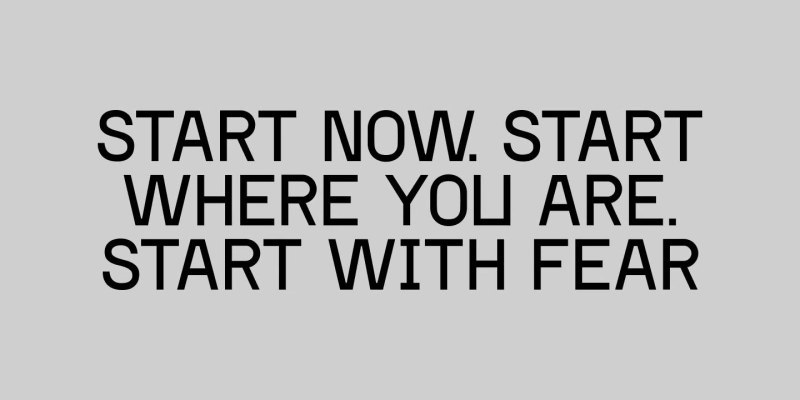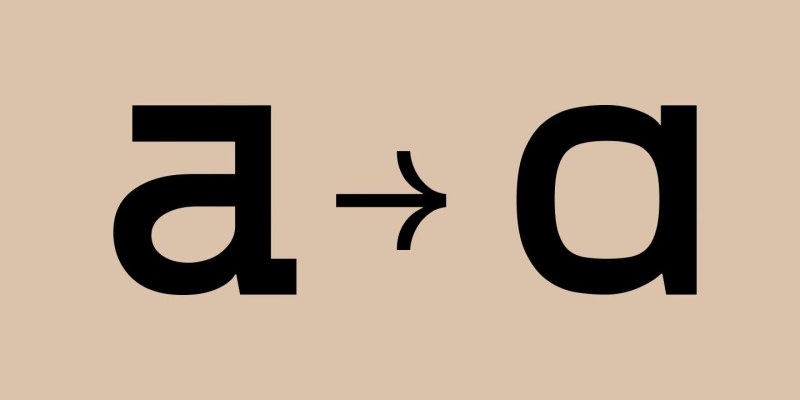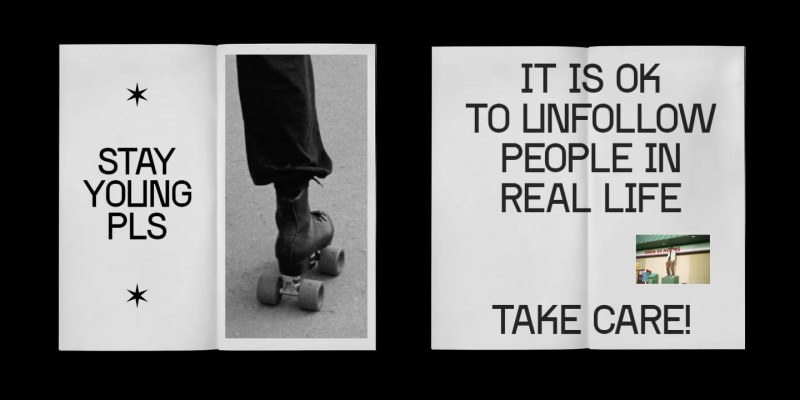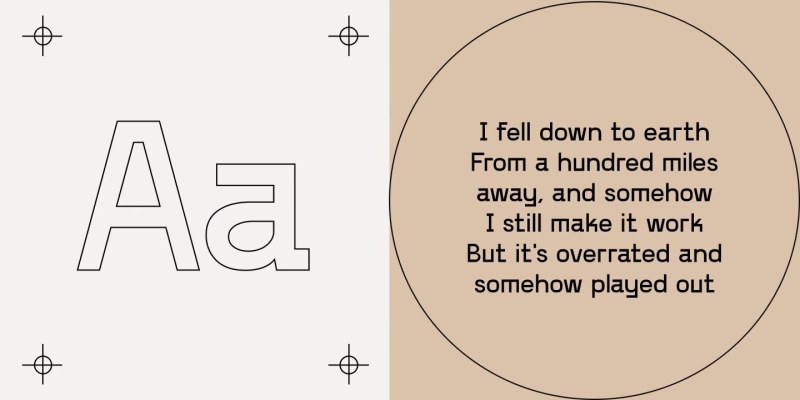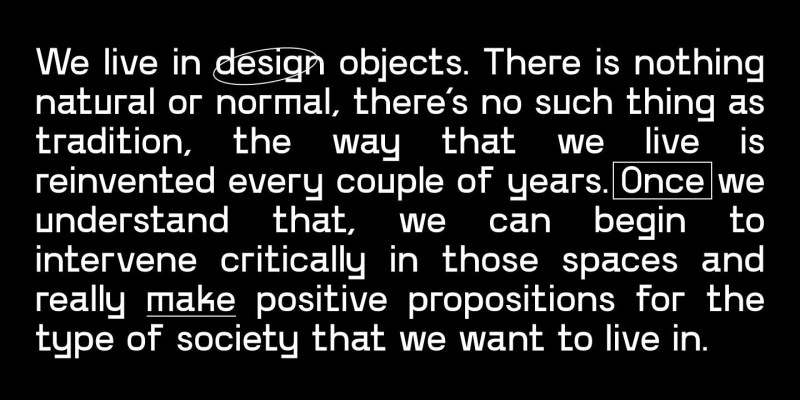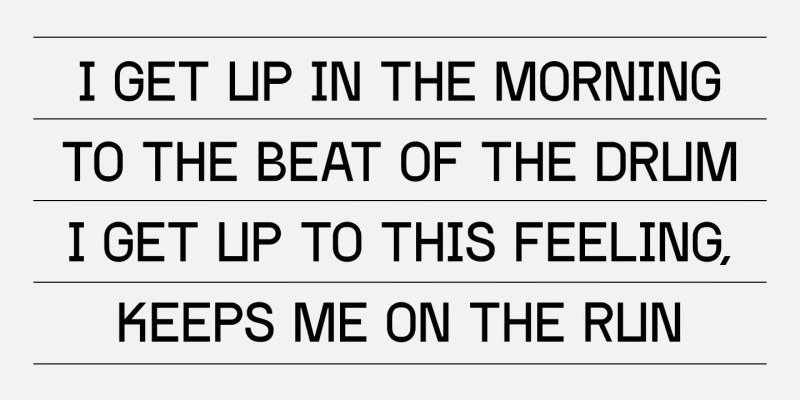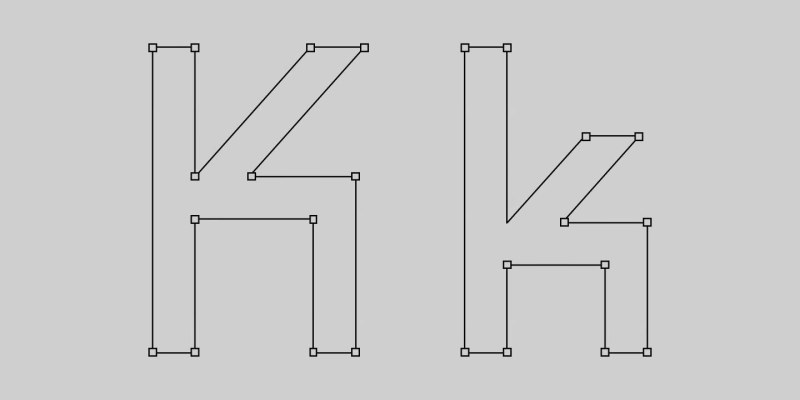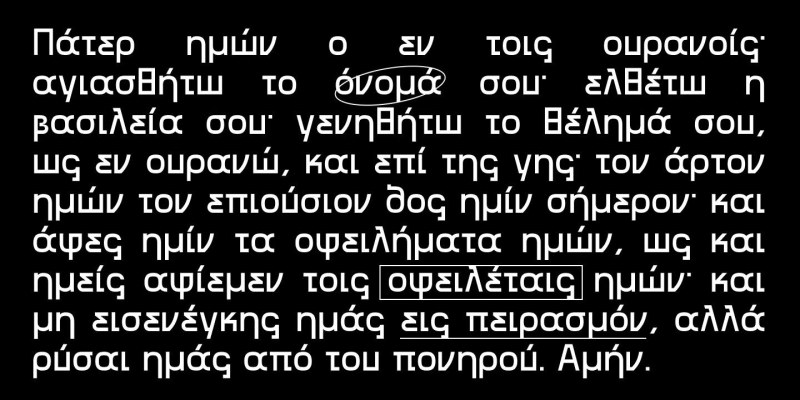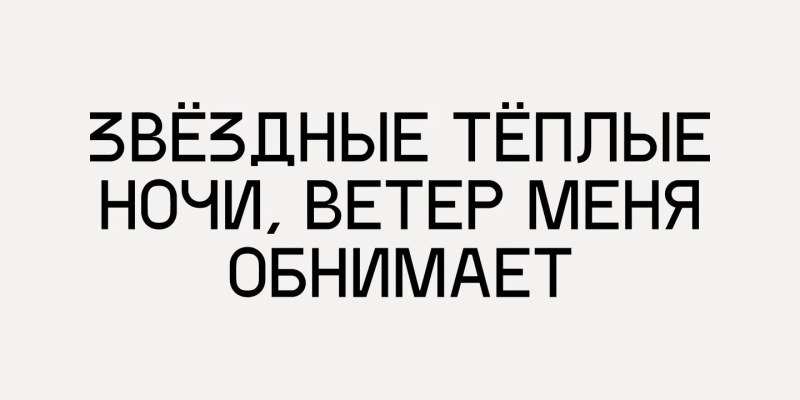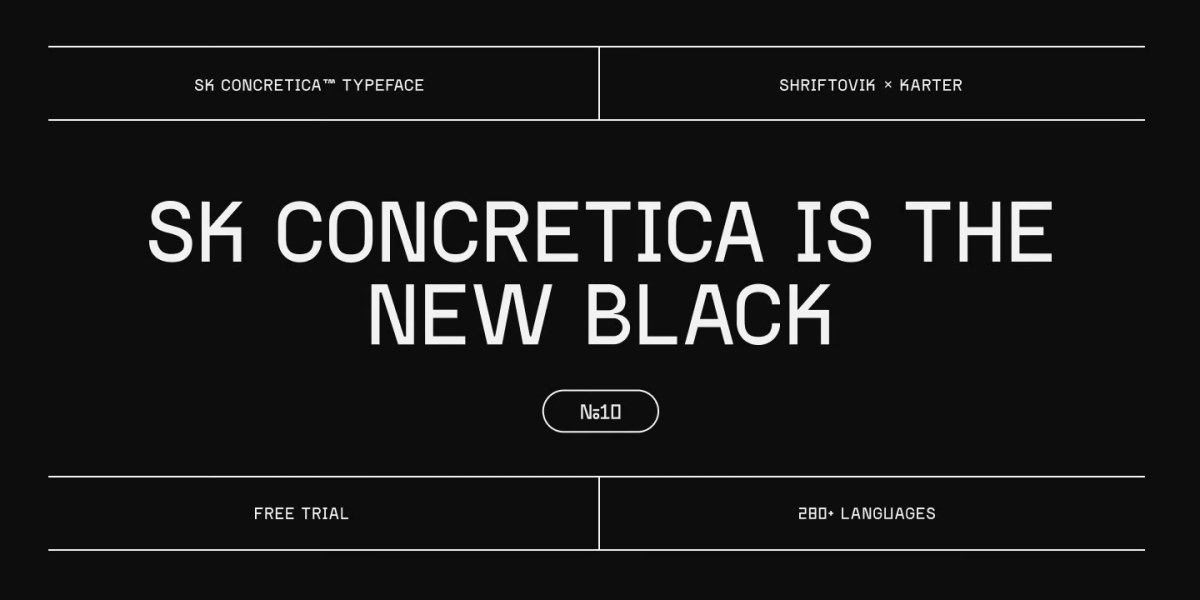
SK Concretica Font
Character set · 856 glyphs
SK Concretica™ is our first experimental typeface for typing and text arrays. The font is inspired by the works of great masters of type design, such as Adrian Frutiger, Eric Spickerman, Claude Garamon and others. The typeface permeates the spirit of modernism and monometalism. Not for nothing is it called “Concretica”.
This typeface has everything you need for a graphic designer: a basic set of characters (Latin and Cyrillic), additional multilingual character sets (Greek, Hebrew, Hiragana, Katakana), extended basic character sets (Latin Pro, Cyrillic Pro), alternative styles for both letters and signs, arrows (basic and alternative set), and much more.
The typeface is worked out to the smallest detail, and the signs of the classic type design are reinterpreted and based on geometry and modernism. The SK Concretica typeface will look great both in the headings and in the text and will be a functional addition to the design work.